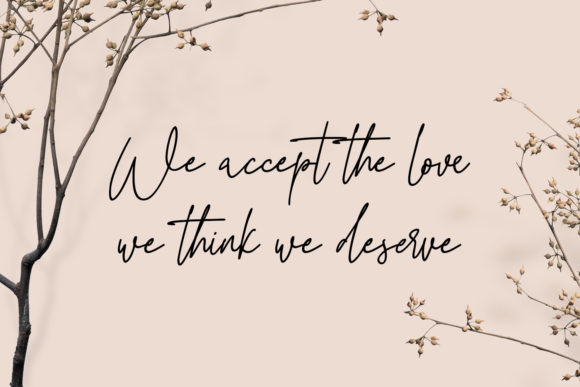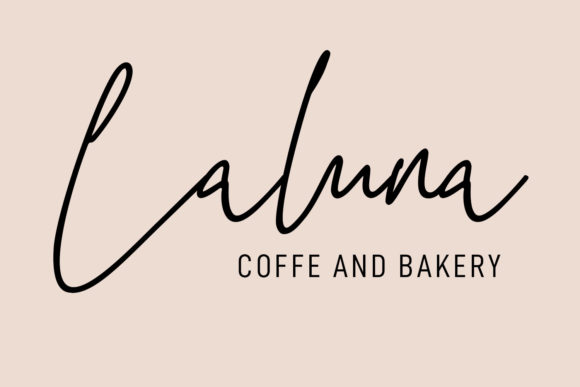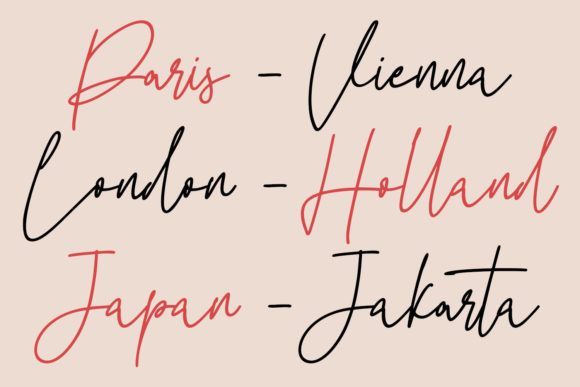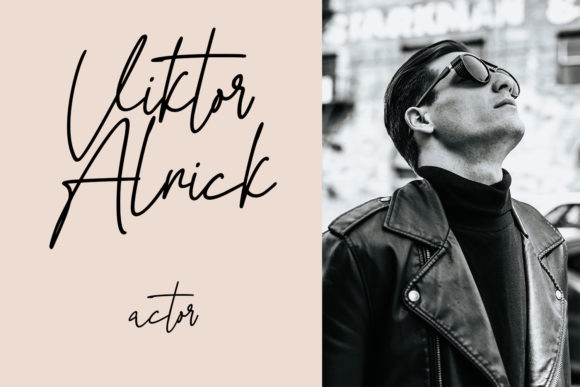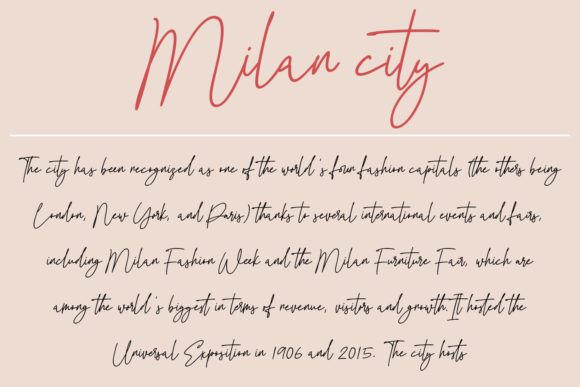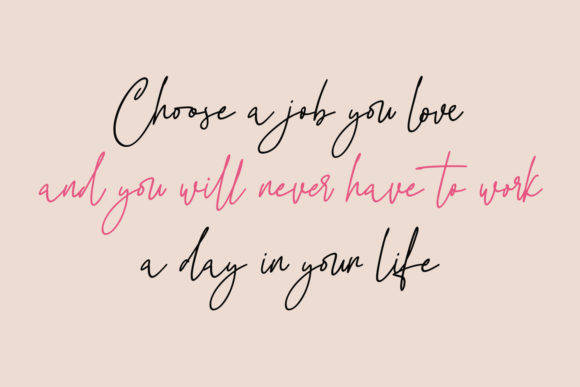
Discover the Elegance of Geofly Font: Elevate Your Designs with a Relaxed Handwritten Style
Are you on the hunt for a font that exudes both sophistication and a laid-back vibe? Look no further than Geofly Font. This beautifully crafted handwritten font is designed to capture the hearts of designers and crafters alike, offering the perfect blend of classy calligraphic influences and modern freshness. In this article, we’ll dive into the world of Geofly Font, exploring its unique characteristics, and how it can elevate your projects to new heights.
The Essence of Geofly Font
Geofly Font is a relaxed handwritten font that strikes the perfect balance between elegance and approachability. Its masterful design ensures that it remains true to its calligraphic roots while embracing a contemporary aesthetic. This font is not just a typeface; it’s an experience. It’s about adding a touch of personality and warmth to your designs, making them more relatable and engaging.
Key Features of Geofly Font
- Classy Calligraphic Influences: Geofly Font boasts beautiful, flowing lines that are reminiscent of traditional calligraphy. This gives it an upscale feel that’s perfect for projects requiring a bit of sophistication.
- Contemporary and Fresh: Despite its classic influences, Geofly Font feels incredibly modern. Its relaxed style ensures that it doesn’t come off as too formal or stuffy, making it versatile for a wide range of applications.
- Handwritten with Love: The font’s handwritten nature adds a personal touch to any project. It’s like adding a handwritten note to a digital design, making it more personal and engaging.
- Easy to Read: One of the key advantages of Geofly Font is its readability. Even at smaller sizes, it remains clear and legible, making it perfect for both headings and body text.
Why Choose Geofly Font?
With so many fonts available, why should Geofly Font be your go-to choice? Here are a few compelling reasons:
- Versatility: Whether you’re working on a branding project, a website design, or crafting a social media graphic, Geofly Font adapts seamlessly. Its versatility makes it a valuable addition to any designer’s toolkit.
- Emotional Connection: Fonts have the power to evoke emotions. Geofly Font, with its warm and inviting style, can help create a connection with your audience, making your message more impactful.
- Time-Saving: Geofly Font is designed to work effortlessly across various platforms and devices. This compatibility saves you time and hassle, ensuring your designs look great everywhere.
Using Geofly Font in Your Projects
So, how can you incorporate Geofly Font into your designs? Here are a few ideas to get you started:
- Branding and Logos: Use Geofly Font to create a memorable brand identity. Its unique style can help your logo stand out and make your brand more recognizable.
- Web Design: Enhance your website’s aesthetic with Geofly Font. It can be used for headings, titles, and even body text to create a cohesive and inviting design.
- Social Media Graphics: Make your social media posts more engaging with Geofly Font. It’s perfect for creating eye-catching headlines and adding a personal touch to your content.
- Crafting and DIY Projects: If you’re into crafting or DIY projects, Geofly Font can add a professional touch to your labels, cards, and other creative endeavors.
Geofly Font is more than just a typeface; it’s a design companion that can elevate your projects to new levels of elegance and sophistication. Its unique blend of classy calligraphic influences and modern freshness makes it a standout choice for designers and crafters looking to add a personal touch to their work. Whether you’re creating a brand identity, designing a website, or crafting something special, Geofly Font is sure to become your new favorite. So why wait? Fall in love with Geofly Font and discover a new world of design possibilities.